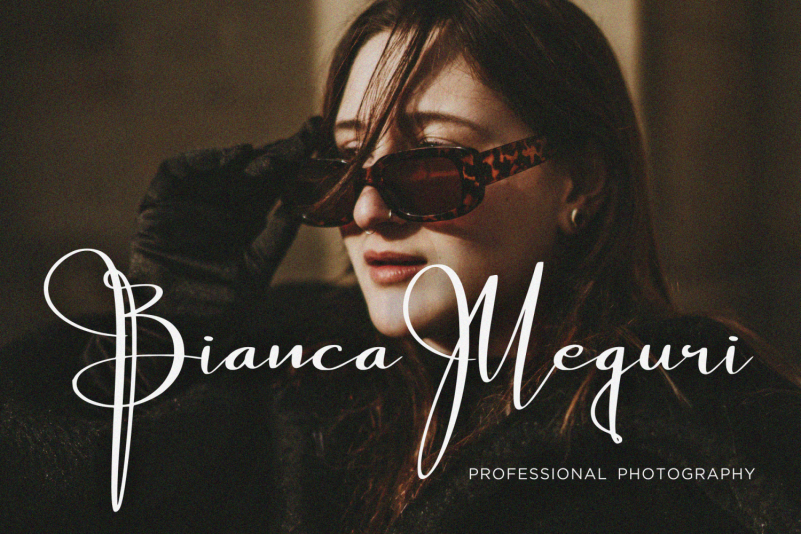
Thousand Sunnygo Typeface
Thousand Sunnygo Typeface Is a Modern Script Font. Thousand Sunnygo is perfect for product packaging, branding project, megazine, social media, wedding, or just used to express words above the background.